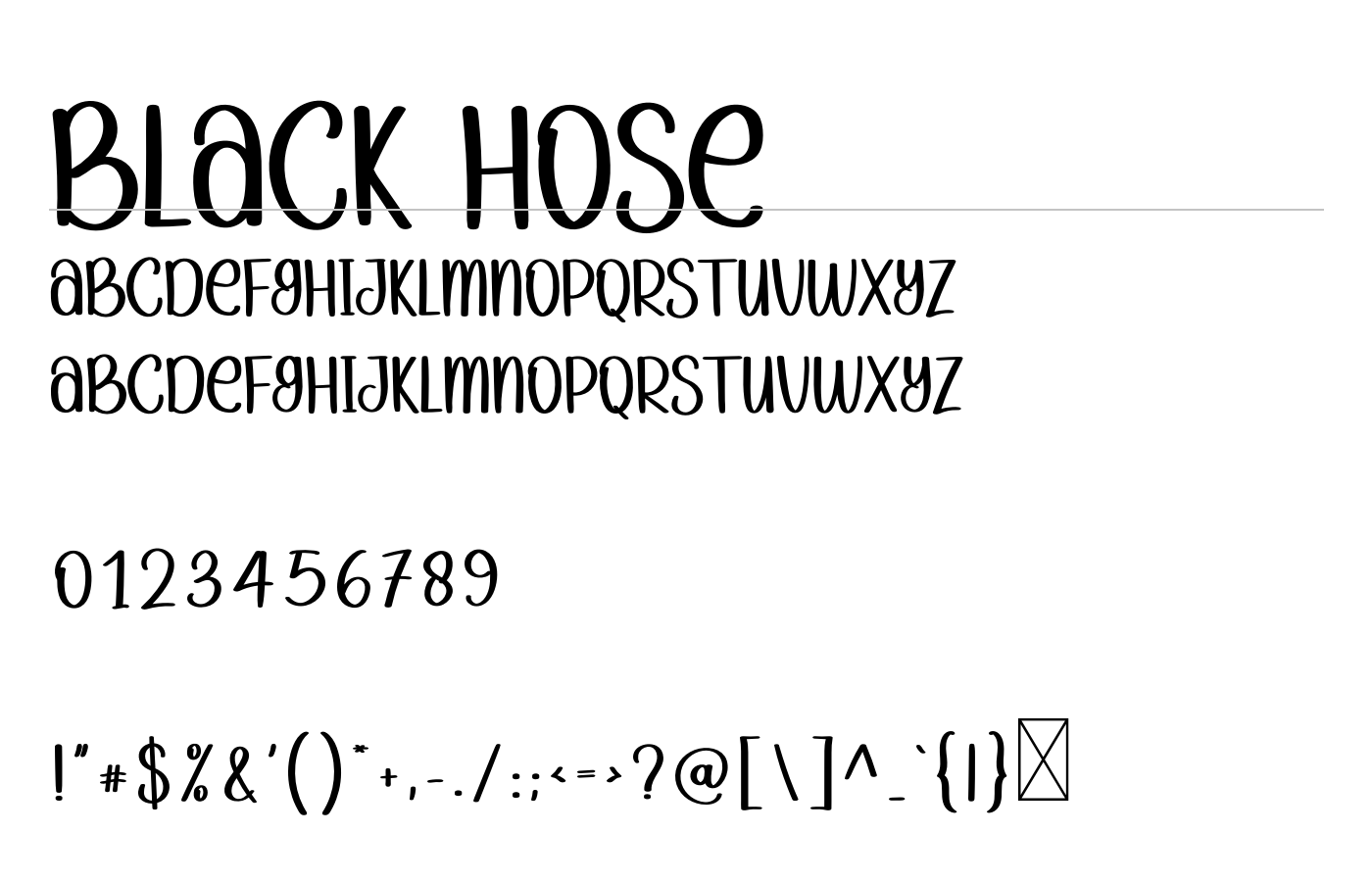
Black Hose is a playful, handwritten sans serif font with a tall, narrow structure and moderate stroke contrast. Its quirky, irregular letterforms and friendly curves give it a casual, approachable feel, making it perfect for creative projects, children’s materials, and informal branding that needs a fun, lively touch. This font works well in headlines, logos, and packaging where a unique, cheerful personality is desired.
Black Hose Font
About Black Hose Font